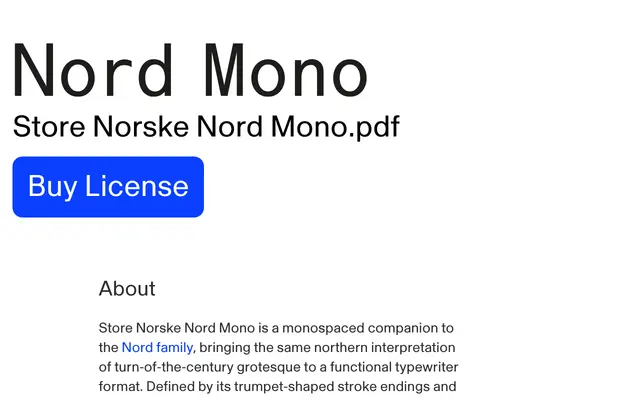
Store Norske Nord Mono
A monospaced companion to the Nord grotesque family, designed by Arve Båtevik with trumpet-shaped stroke endings and eight weights for coding, editorial and branding use.
Nord Mono carries the northern, turn-of-the-century grotesque character of the Nord family into a fixed-width format, with matching italics across eight weights from Thin to Black. Trumpet-shaped stroke endings give it a quiet distinctiveness that sets it apart from more anonymous coding faces. The extensive Latin character set covers Nordic and Sami languages, and five stylistic sets offer alternates for characters including the lowercase 'a', zero and percent sign.
A monospaced companion to the Nord grotesque family, retaining the turn-of-the-century grotesque character of the original with trumpet-shaped stroke endings adapted to fixed-width settings.